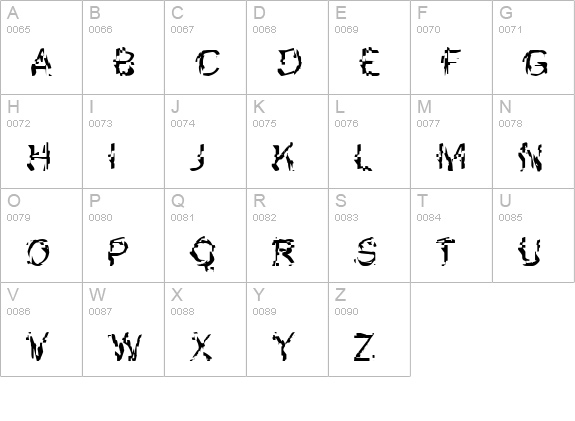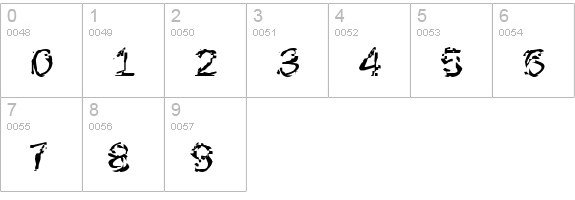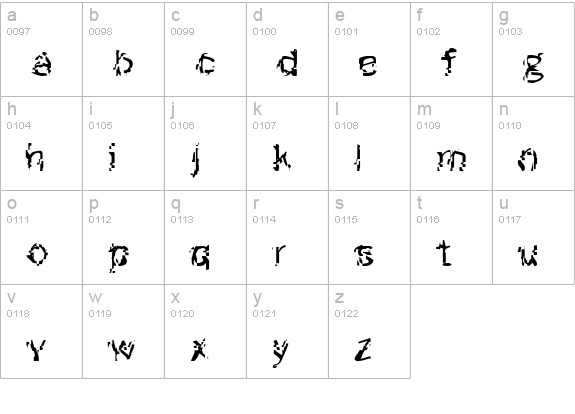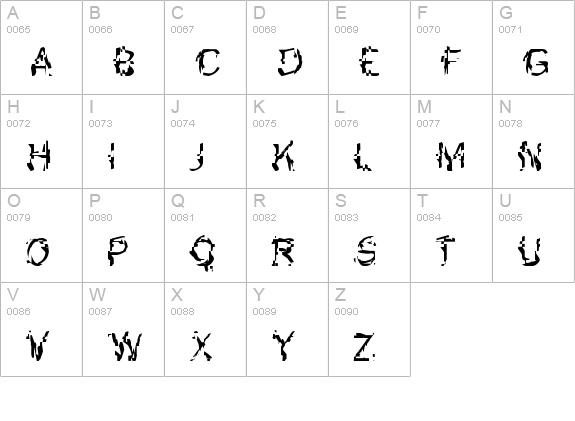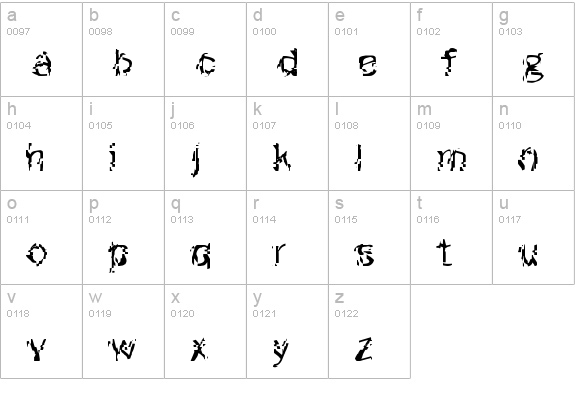
Acid daze two Font Details
Acid Daze Two font is a unique and eye-catching typeface that will add a touch of edginess to your designs. With its bold and distorted letterforms, this font exudes a sense of energy and creativity. Perfect for projects that require a modern and experimental look, Acid Daze Two font is sure to make a statement. The best part? Acid Daze Two font is available for free download at FontsMarket.com. So, you can easily add this striking font to your collection without any cost. Whether you're working on a poster, logo, or branding project, Acid Daze Two font will help you stand out and make a lasting impression. Don't miss out on this fantastic opportunity to enhance your designs with this dynamic and impactful font. Download it now and let your creativity shine!